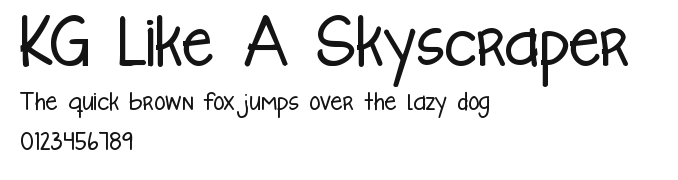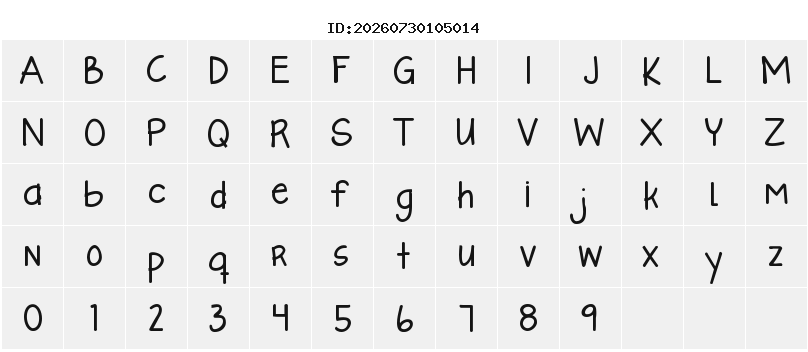
KG Like A Skyscraper  Preview
• Font Name: KG Like A Skyscraper
• Font ID: KimberlyGeswein: KG Like A Skyscraper Bold: 2011
• Full Font Name: KG Like A Skyscraper Bold
• Version: Version 1.000 2011 initial release
• PostScript Name: KGLikeASkyscraper-Bold
• Character Count: 316
• Designer: Kimberly Geswein
About KG Like A Skyscraper .ttf
KG Like A Skyscraper .ttf is a modern, elegant sans-serif font designed for ultimate readability and visual harmony. Perfect for branding, headlines, web design, and print materials.